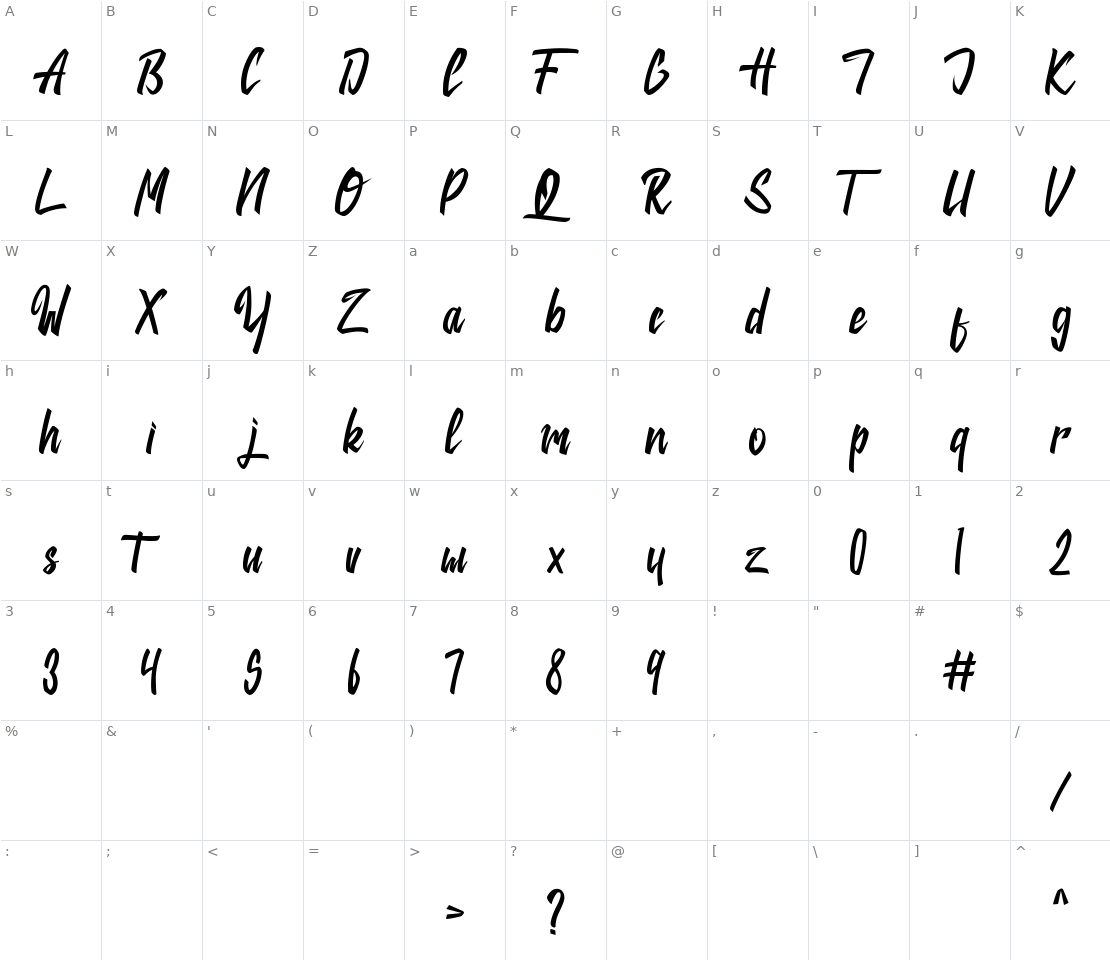
Jackie
by Graphix Line Studio
Jackie is a thick, expressive brush face from Graphix Line Studio with bold strokes that feel fast and confident, like someone attacked the page with a loaded brush and didn't second-guess a single letter. The casual, handwritten energy makes it a strong pick for headlines, packaging, and social media where you want something that feels human and punchy without being precious.